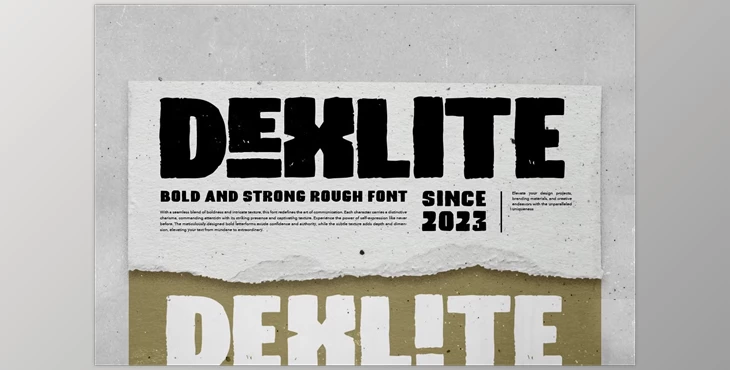
Dexlite - Bold & Strong Rough Font:
Dexlite is a robust and impactful font characterized by its textured and rugged appearance. Ideal for vintage posters requiring a handmade and weathered aesthetic, Dexlite adds a distinctive edge to your project. Its bold presence ensures your designs command attention, while its multi-language support enhances versatility. Choose Dexlite to elevate your project and make a lasting impression.